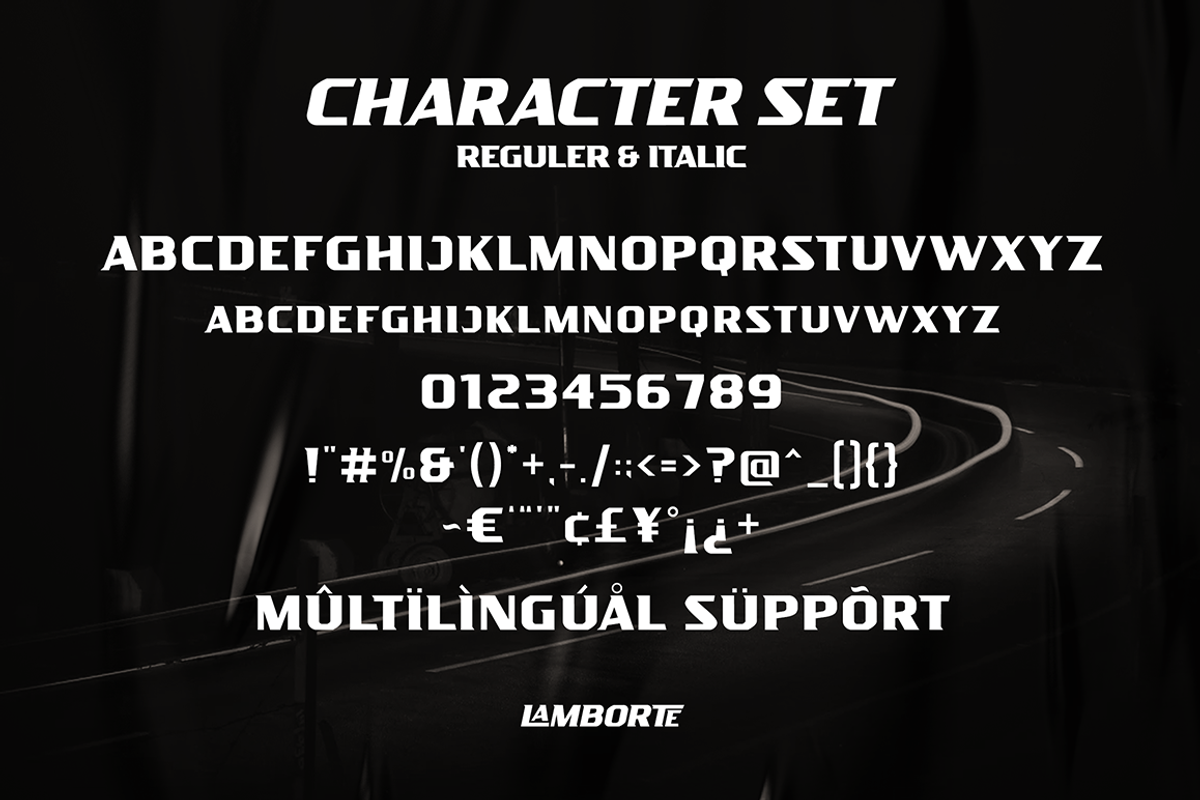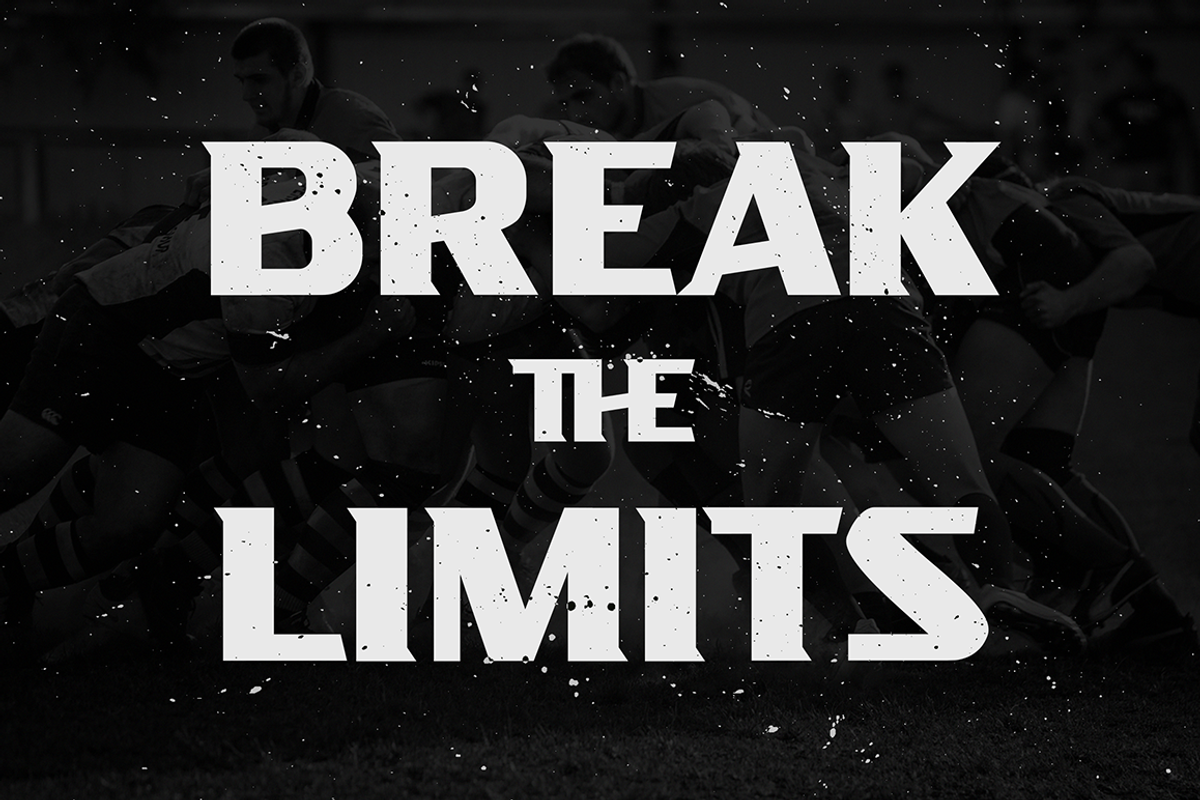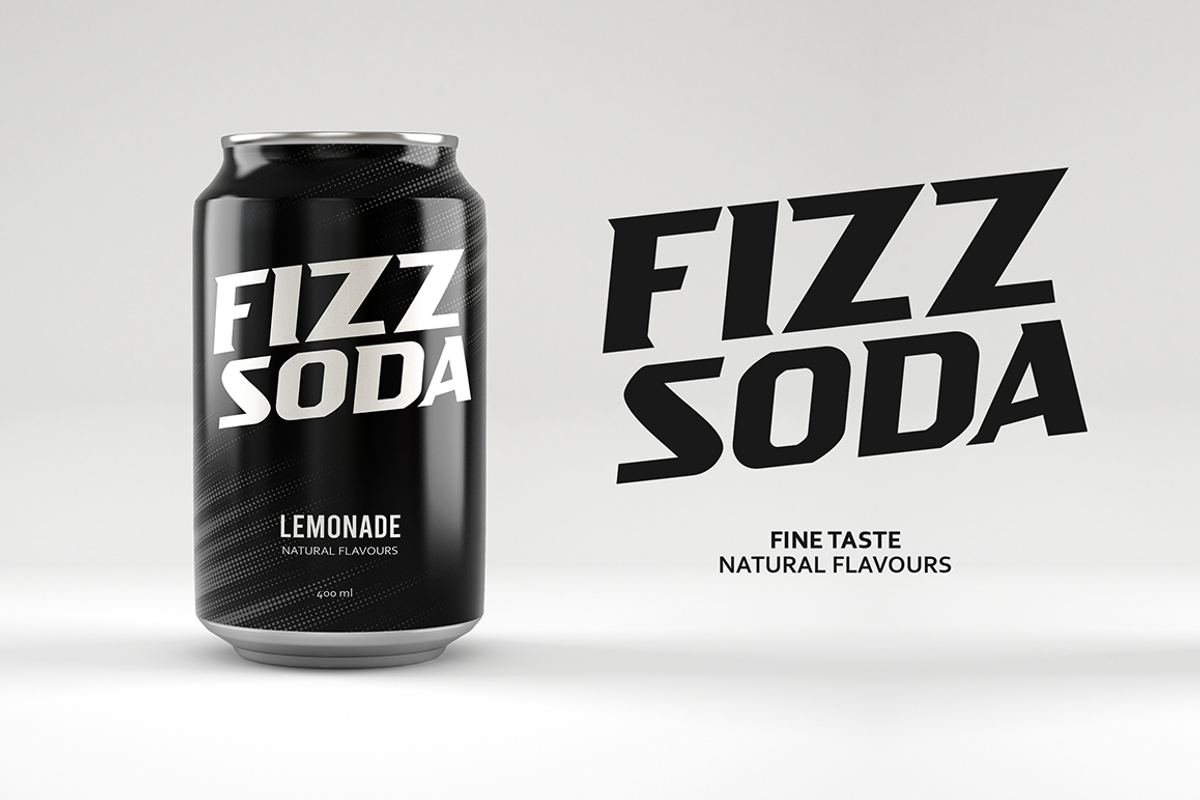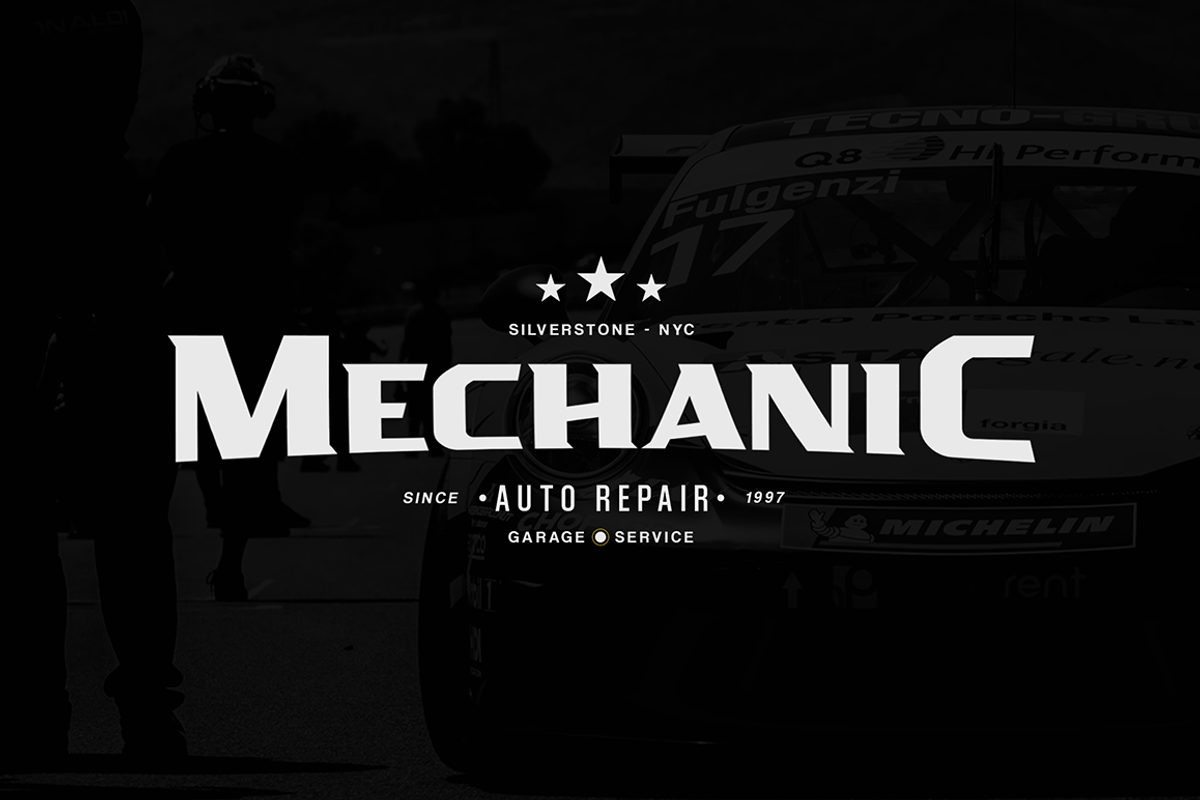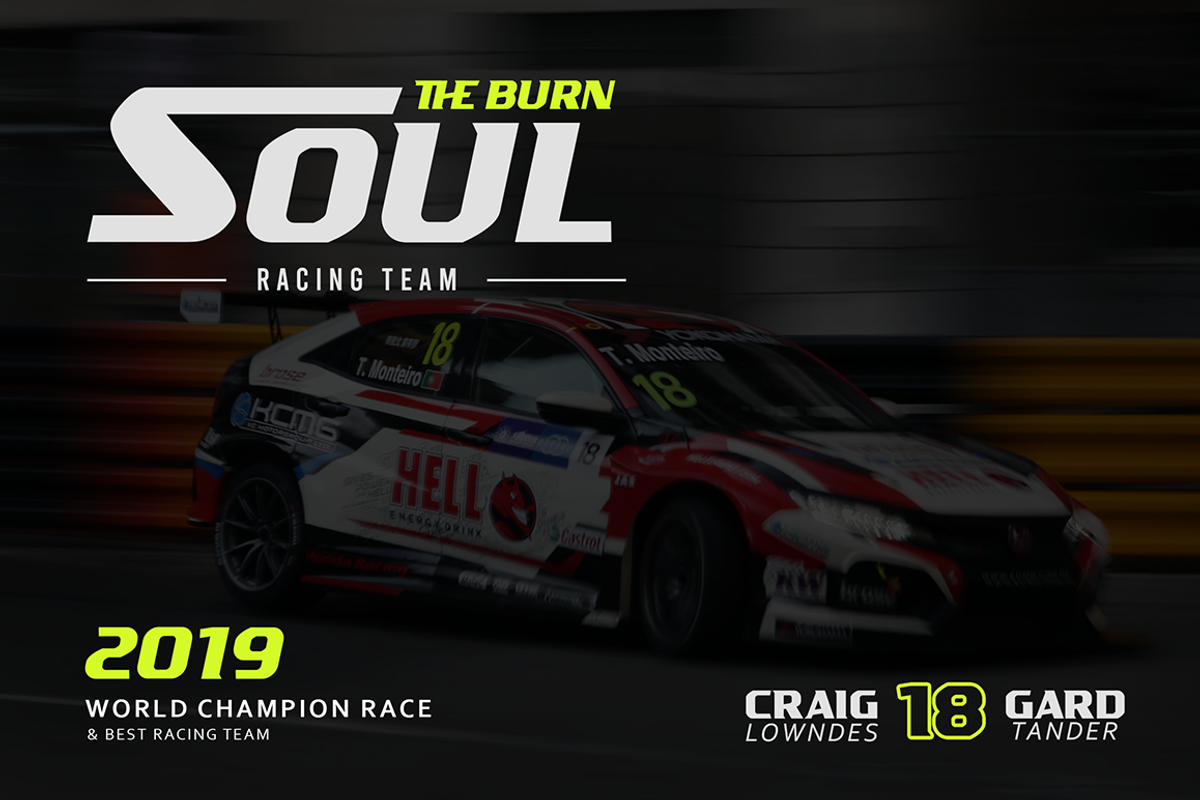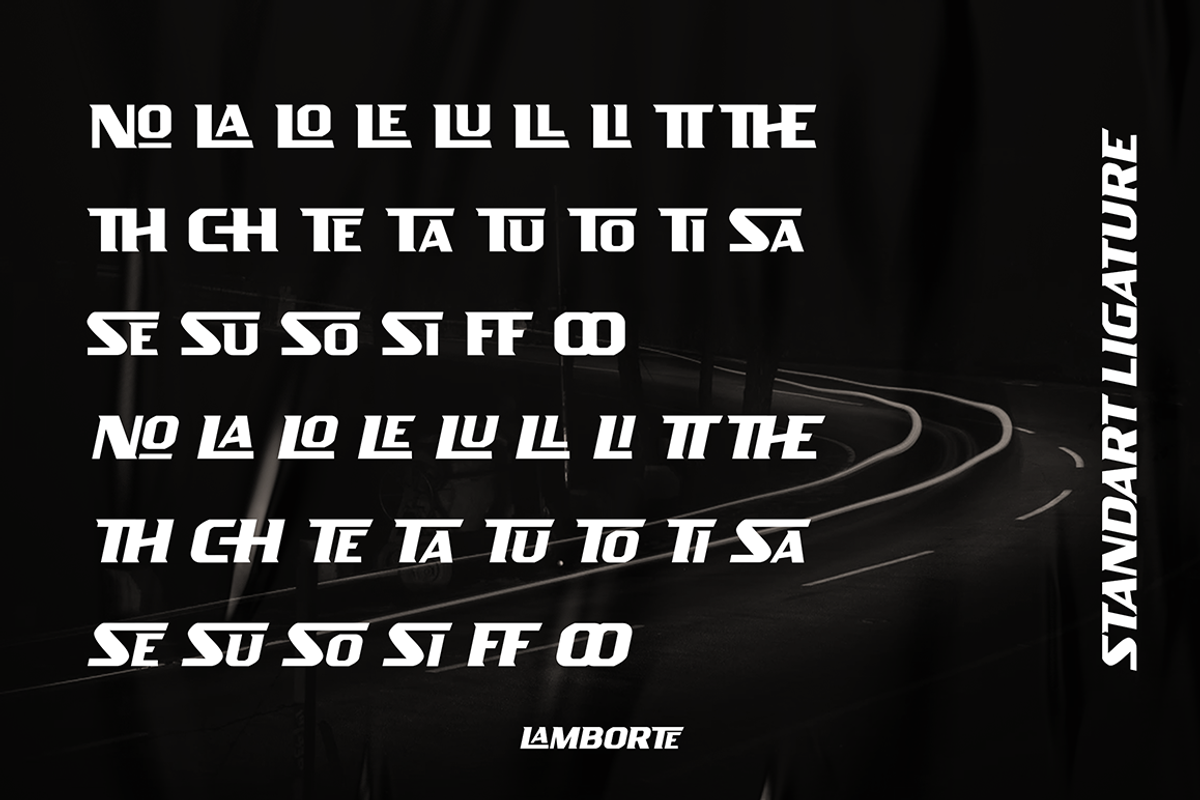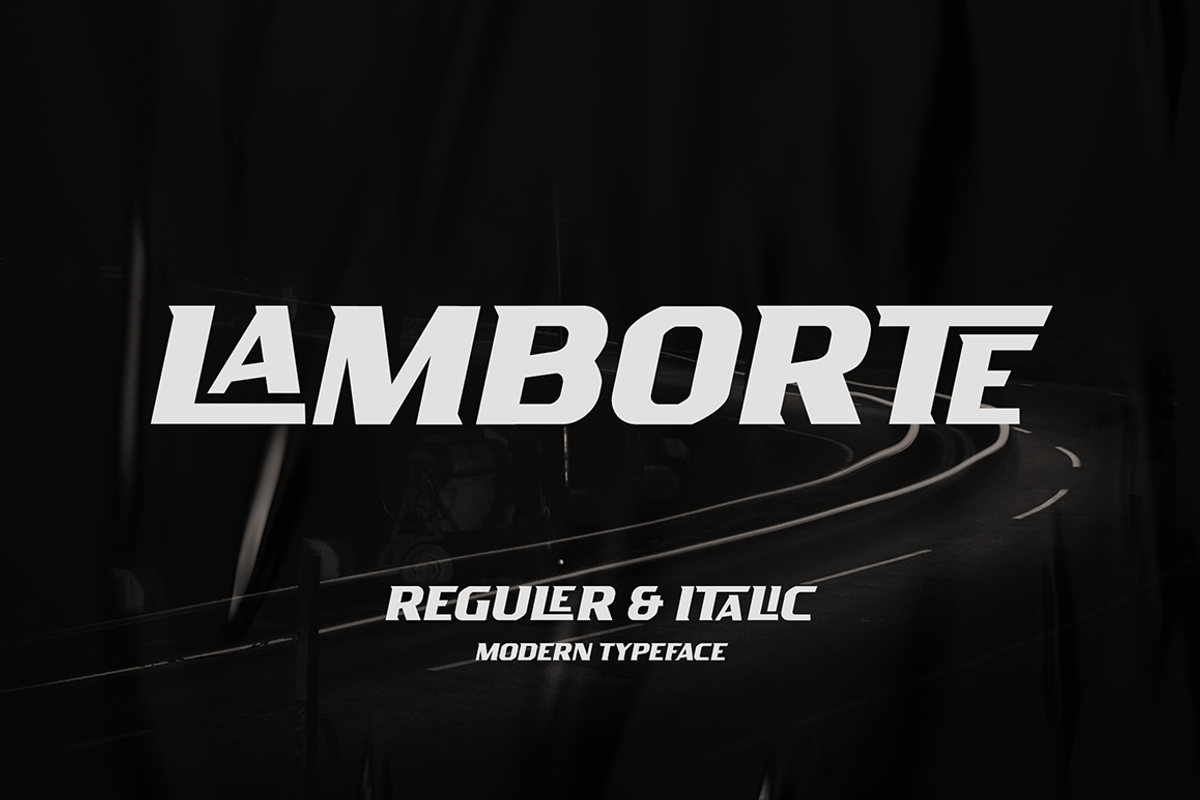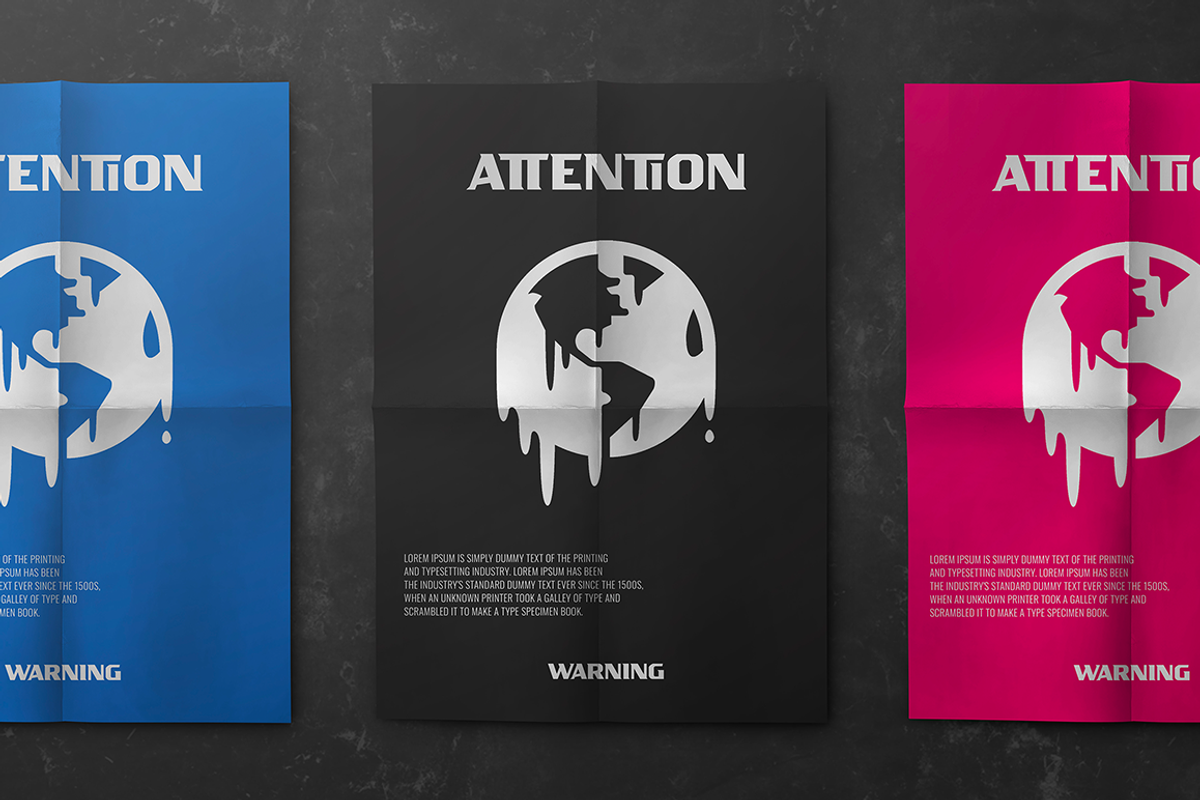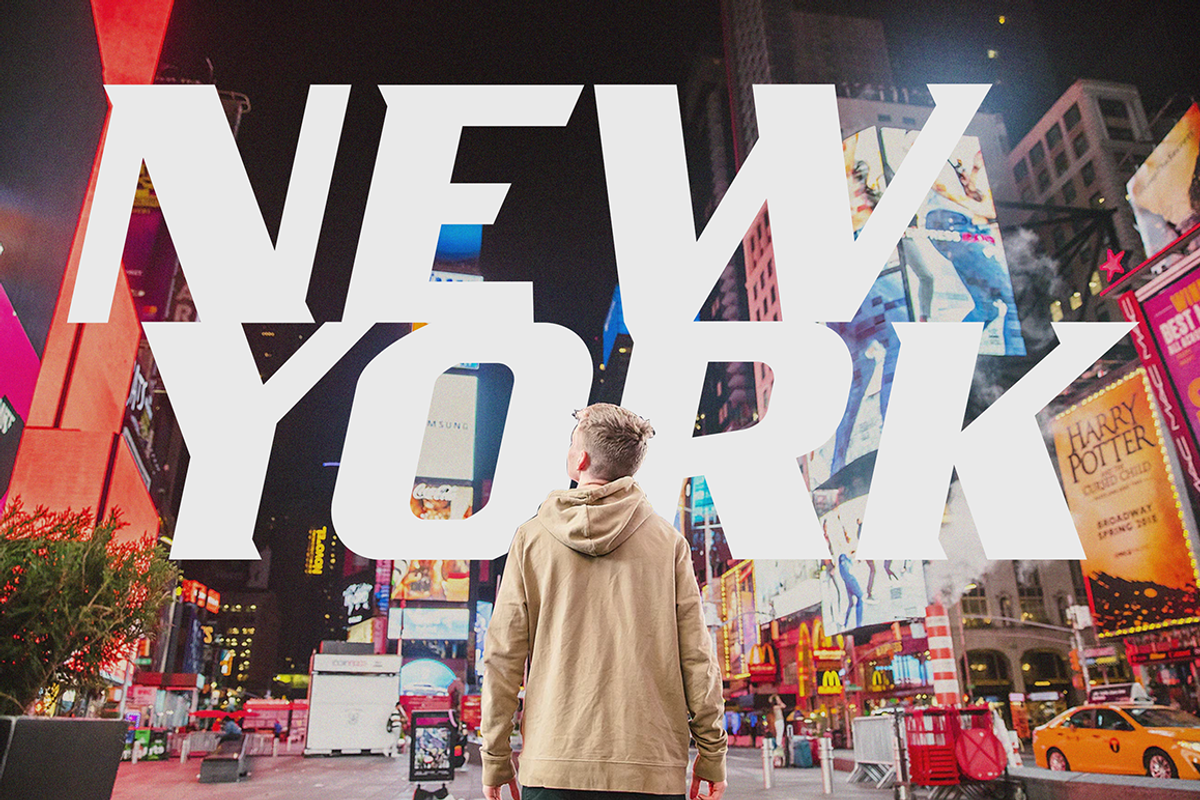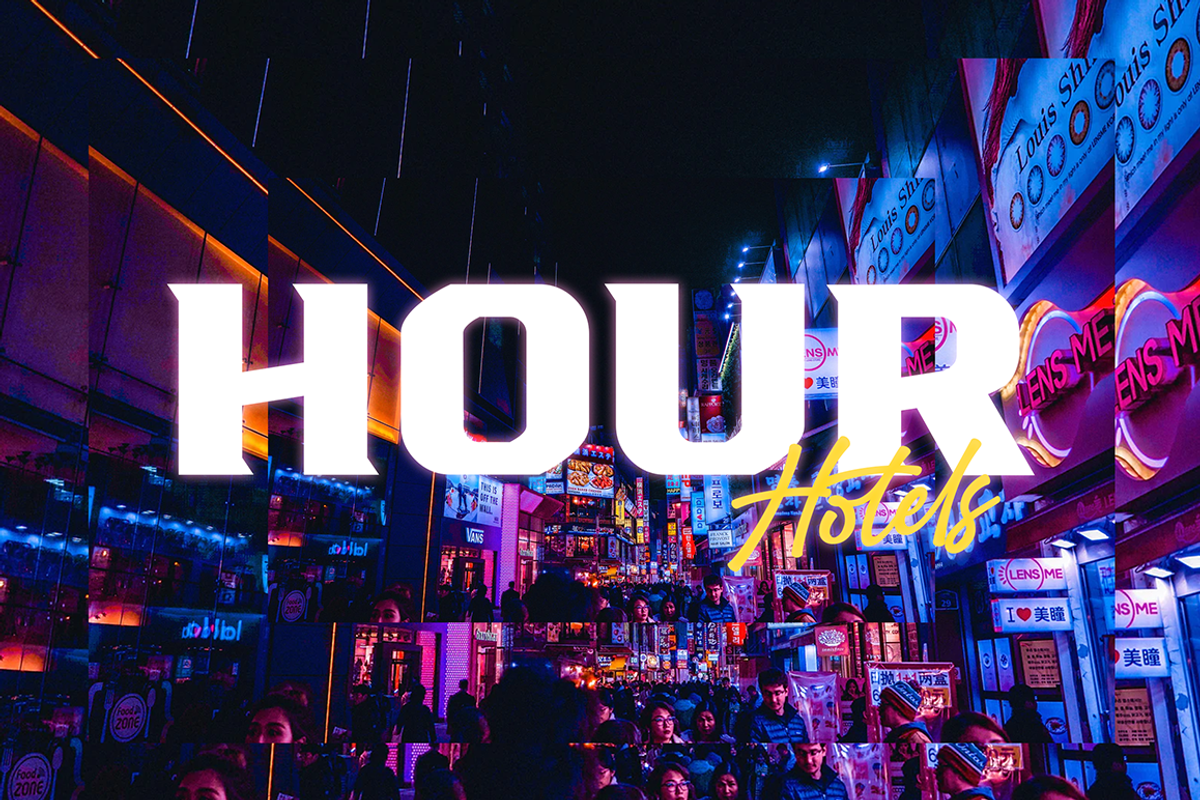
LAMBORTE
Lamborte is a strong modern sans serif style with All Caps feel nice balanced. Its wide range of uppercase with ligatures allow versatile design options and works perfectly for headlines, logos, posters, packaging, T-shirts and much more.
- Regular and Italic version
- Character set A-Z
- Ligatures in Uppercase
- Accented Characters
- Multiple Languages Supported